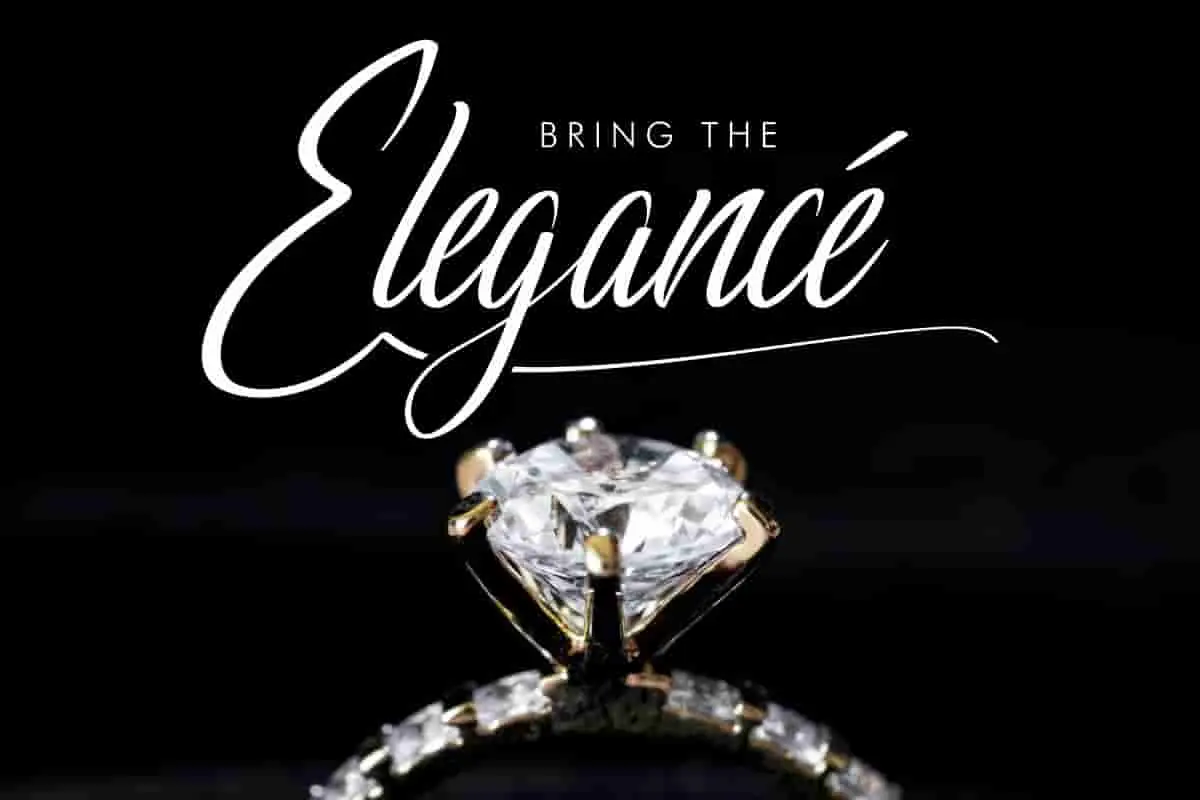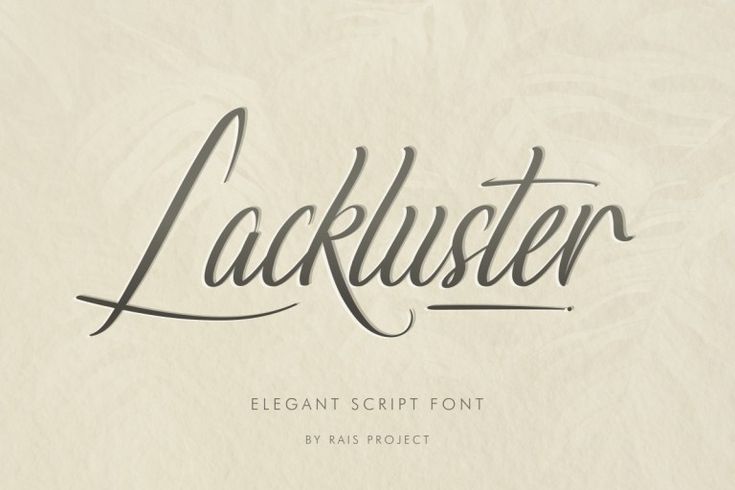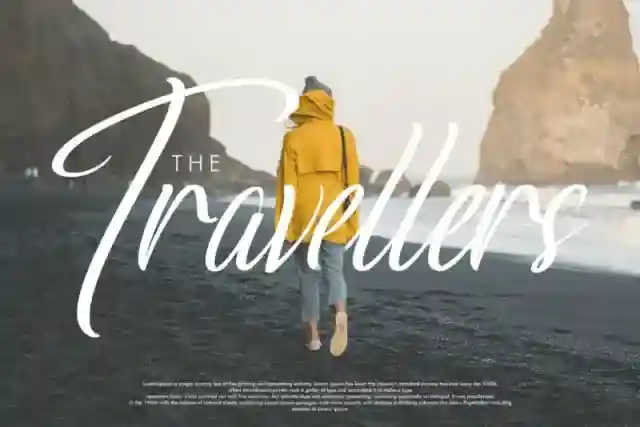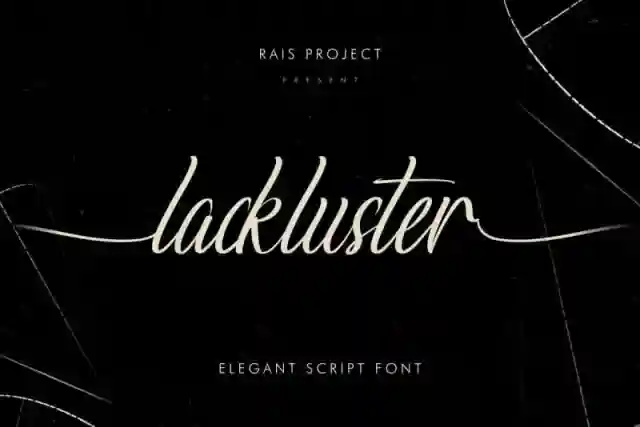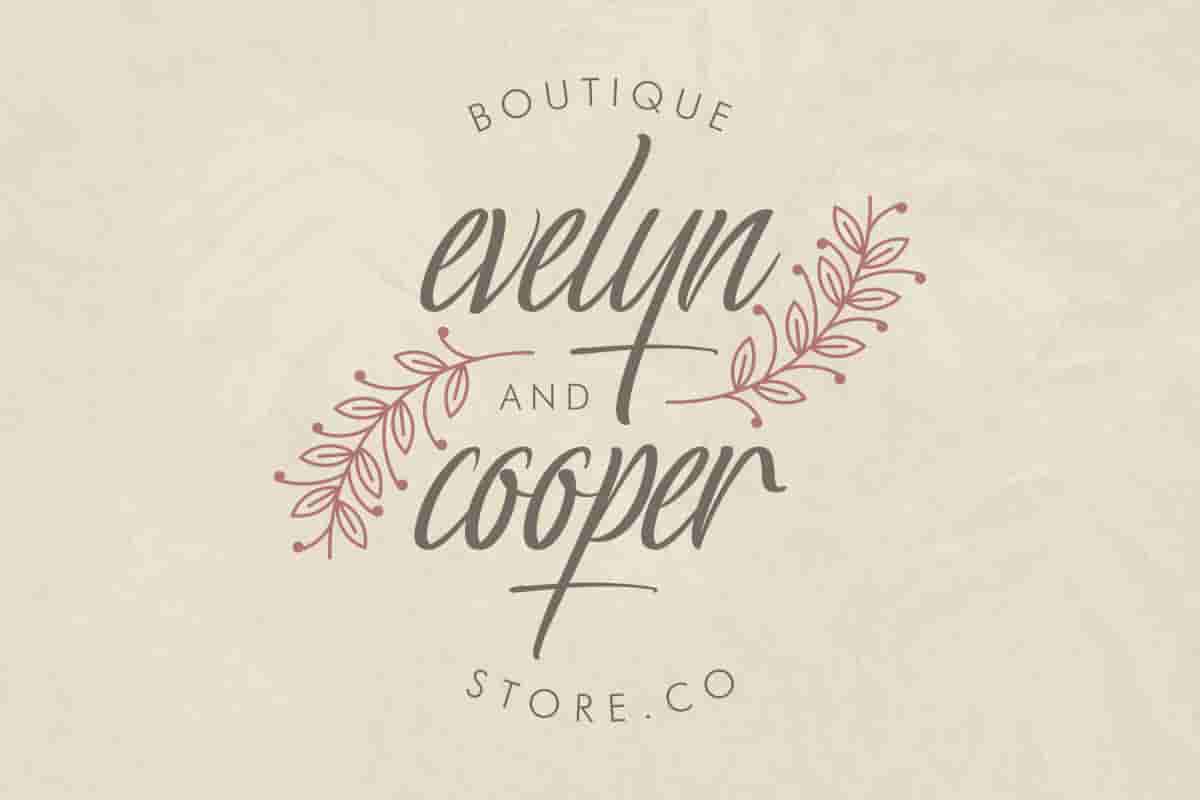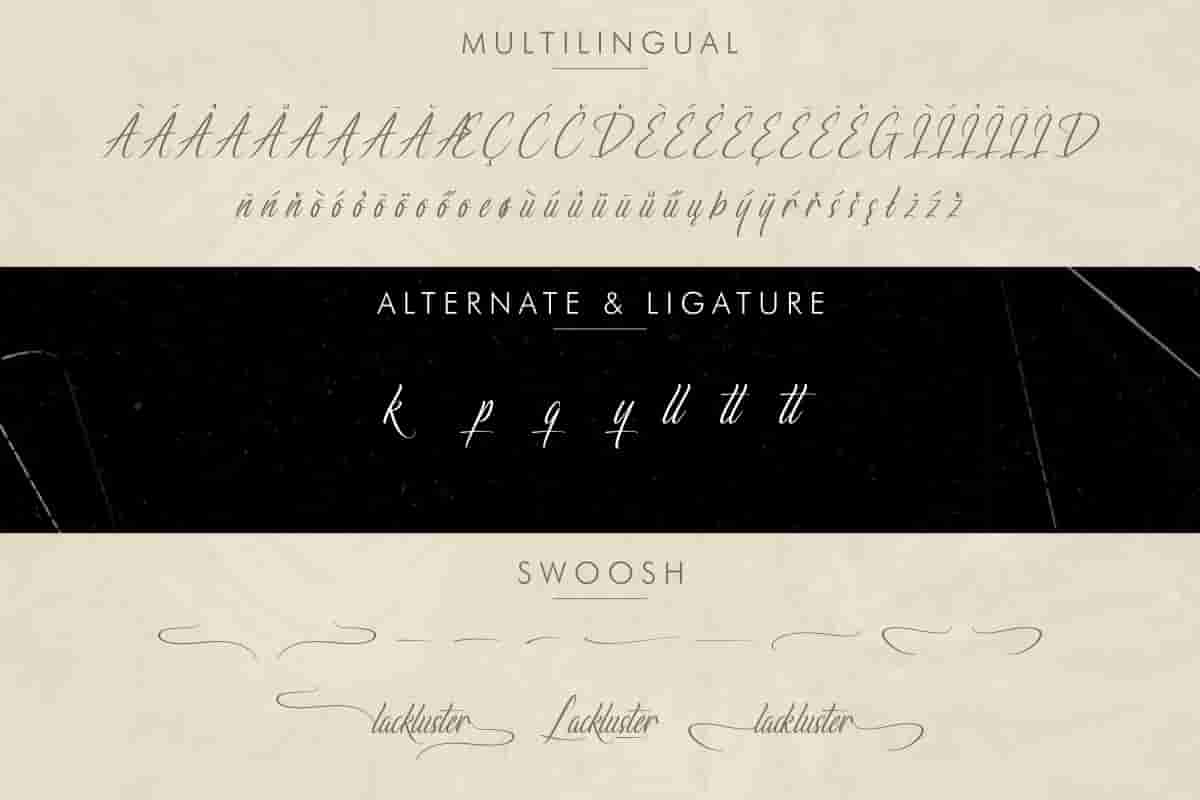
Lackluster Font Calligraphy
Hello, this is Lackluster Font – Calligraphy Script Font by RaisProject.This calligraphic style font will be awesome for many projects such as wedding, invitation, watermark, logotype
Lackluster Font is our first font on the market. It is a script font with calligraphic style. You can see the demo font below.
Lackluster Font is made in Bandung and Garut, beautiful cities in Indonesia.Lackluster Font includes full set of gorgeous uppercase and lowercase letters, numerals, a large range of punctuation and ligatures. All lowercase letters include beginning and ending swashes, giving realistic hand-lettered style. You will get:
Lackluster Font is a stylish, modern script font with a unique handwritten touch. Designed to bring a sense of elegance and authenticity to your creative projects, this font is perfect for branding, logos, packaging, wedding invitations, social media posts, and more.